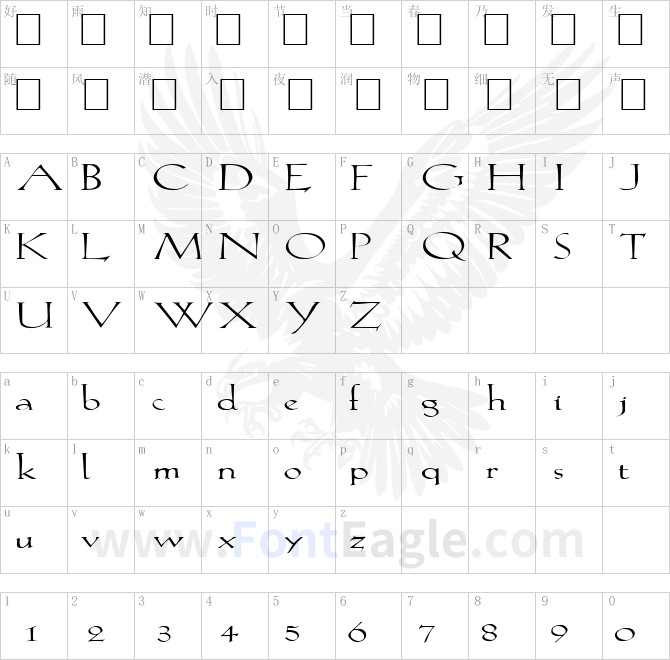
- Font name:FZ ROMAN 20 EX
- Font Subfamily ID:FZ ROMAN 20 EX
- Font Full Name:FZ ROMAN 20 EX
FZ-ROMAN-20-EX is a great font, widely used in graphic design, single-page menu design, poster design and other fields, and is deeply loved by designers.FZ-ROMAN-20-EX download.